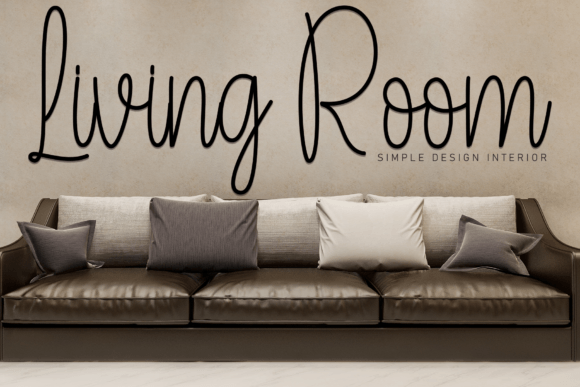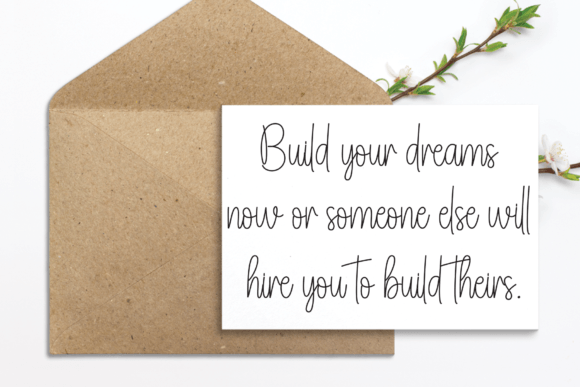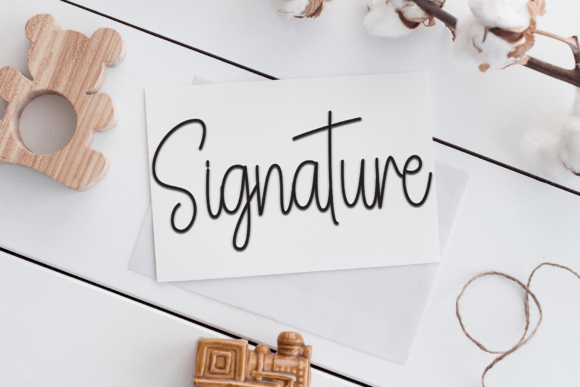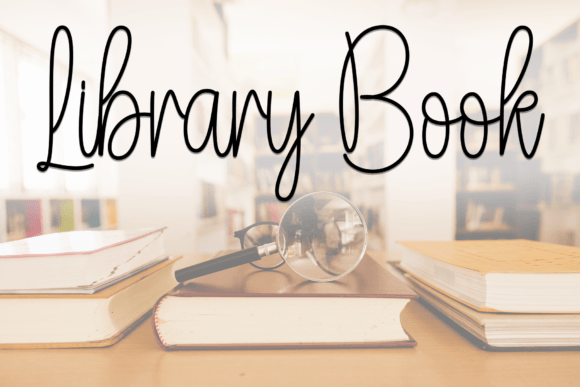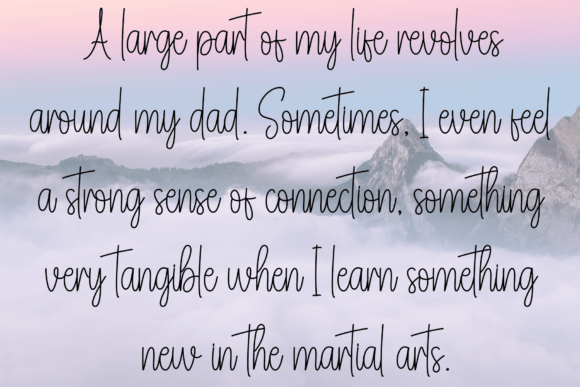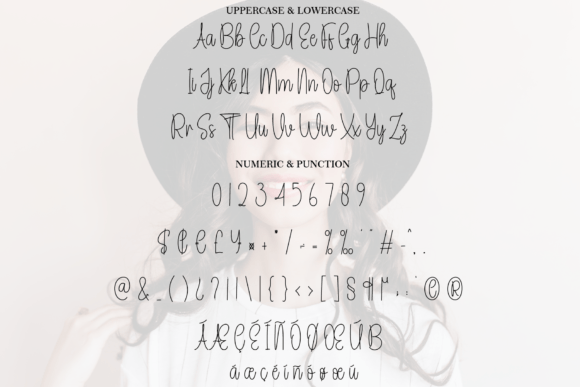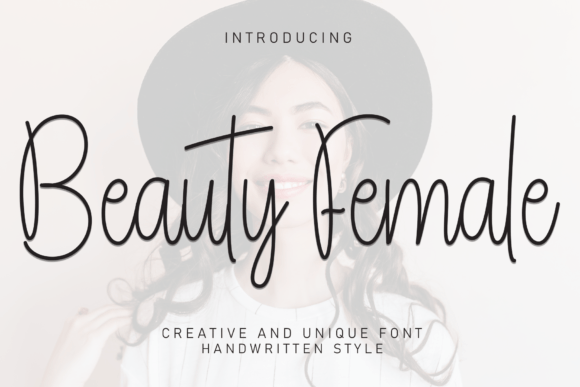
Introducing Beauty Female Font: The Sweet and Friendly Handwritten Font for Your Design Needs
Are you a designer or crafter looking for a font that can add a lovely touch to your designs? Look no further than the Beauty Female Font! This sweet and friendly handwritten font is perfect for creating wedding invitations, cards, and other designs that require a fresh and casual look.
What Makes Beauty Female Font So Special?
Beauty Female Font is a unique and charming font that is sure to capture the hearts of your audience. Its fresh and casual style makes it ideal for a variety of design projects, from wedding invitations and cards to social media graphics and more. The font’s sweet and friendly tone is sure to evoke feelings of warmth and approachability, making it perfect for designs that require a personal touch.
Characteristics of Beauty Female Font
So, what makes Beauty Female Font so special? Here are just a few of its key characteristics:
- Sweet and Friendly: Beauty Female Font has a sweet and friendly tone that is sure to delight your audience.
- Handwritten Style: This font has a beautiful, handwritten style that gives it a personal and approachable feel.
- Fresh and Casual: The font’s fresh and casual style makes it perfect for designs that require a modern and laid-back look.
- Versatile: Beauty Female Font is versatile and can be used for a variety of design projects, from wedding invitations and cards to social media graphics and more.
Uses for Beauty Female Font
So, what can you use Beauty Female Font for? The possibilities are endless! Here are just a few ideas to get you started:
- Wedding Invitations: Beauty Female Font is perfect for creating beautiful and elegant wedding invitations that will set the tone for your special day.
- Cards: Whether you’re creating birthday cards, thank you cards, or holiday cards, Beauty Female Font is sure to add a lovely touch.
- Social Media Graphics: Use Beauty Female Font to create eye-catching social media graphics that will help you stand out from the crowd.
- Branding: Beauty Female Font can also be used for branding projects, such as creating logos, business cards, and more.
Why Choose Beauty Female Font?
So, why should you choose Beauty Female Font for your design needs? Here are just a few reasons:
- Unique and Charming: Beauty Female Font is a unique and charming font that is sure to capture the hearts of your audience.
- Customizable: Beauty Female Font is customizable, allowing you to adjust the font to fit your design needs.
- High-Quality: The font is high-quality, ensuring that it will look great in any design.
In conclusion, Beauty Female Font is a sweet and friendly handwritten font that is perfect for designers and crafters looking to add a lovely touch to their designs. Its fresh and casual style makes it ideal for a variety of design projects, from wedding invitations and cards to social media graphics and more. With its unique and charming tone, ease of readability, customizability, and high-quality design, Beauty Female Font is sure to become a favorite in your design arsenal.